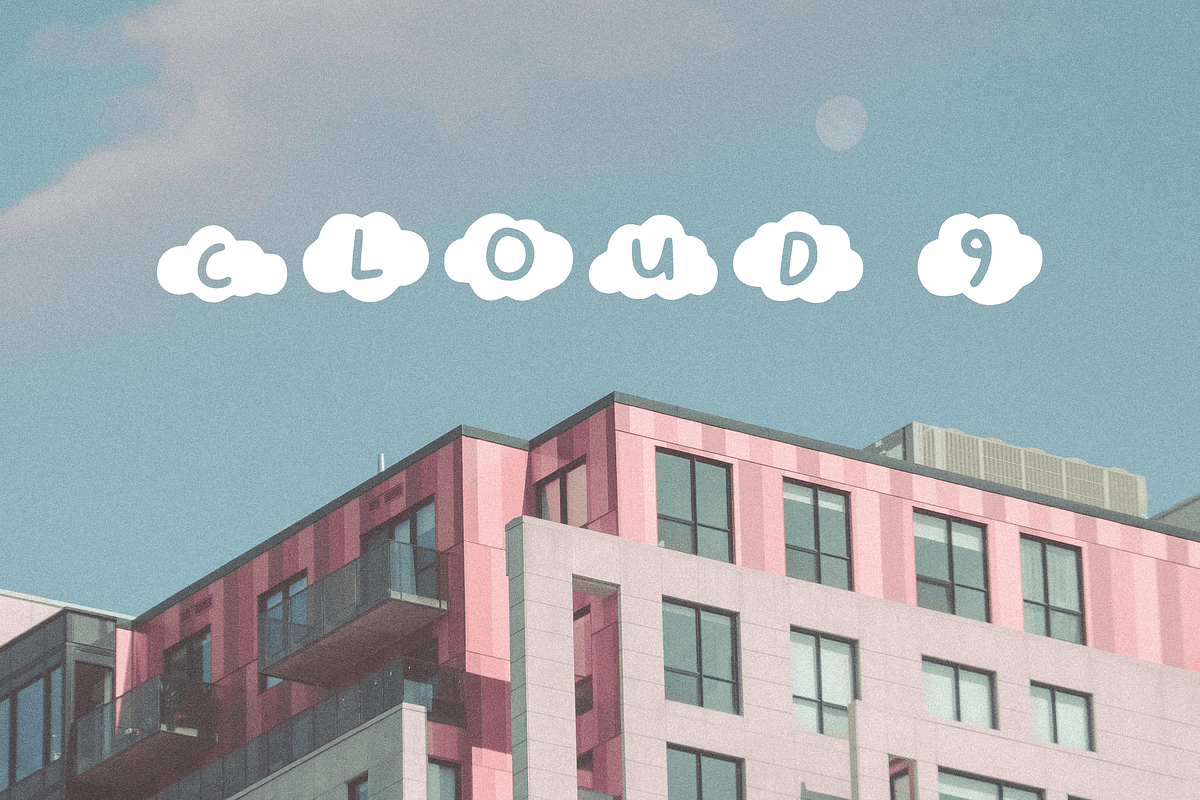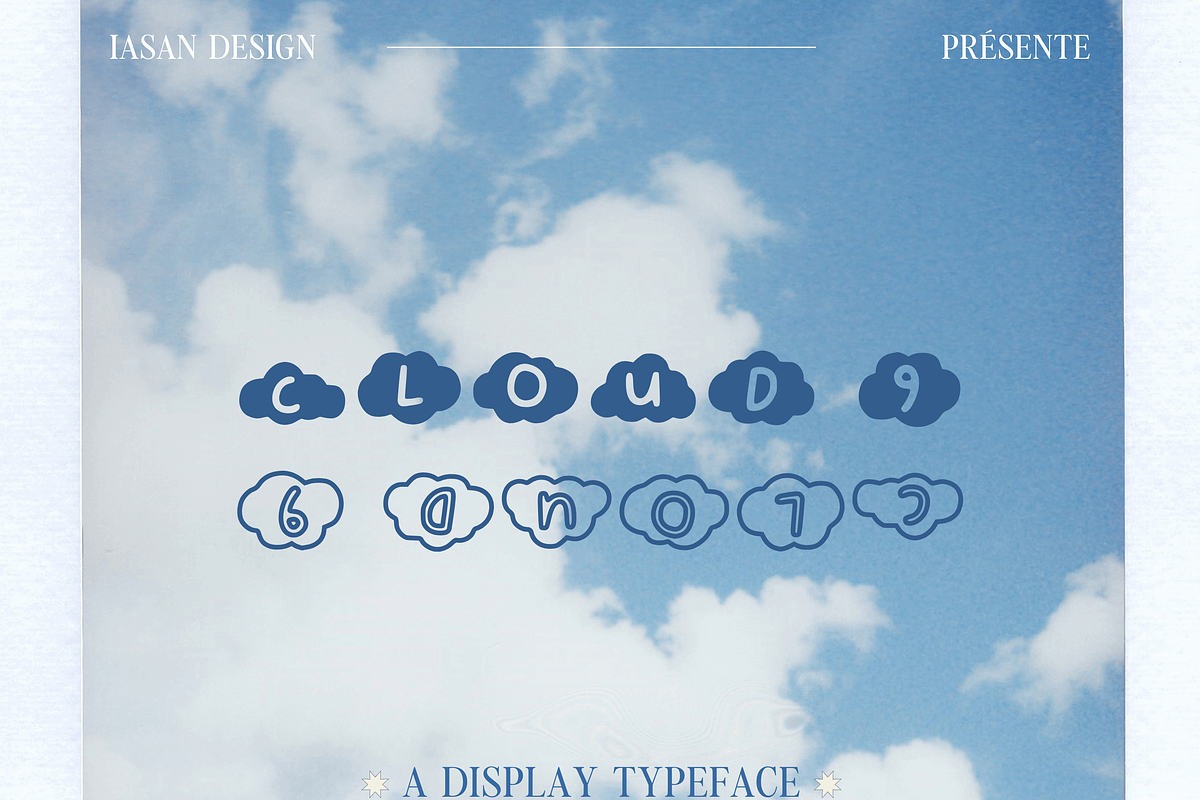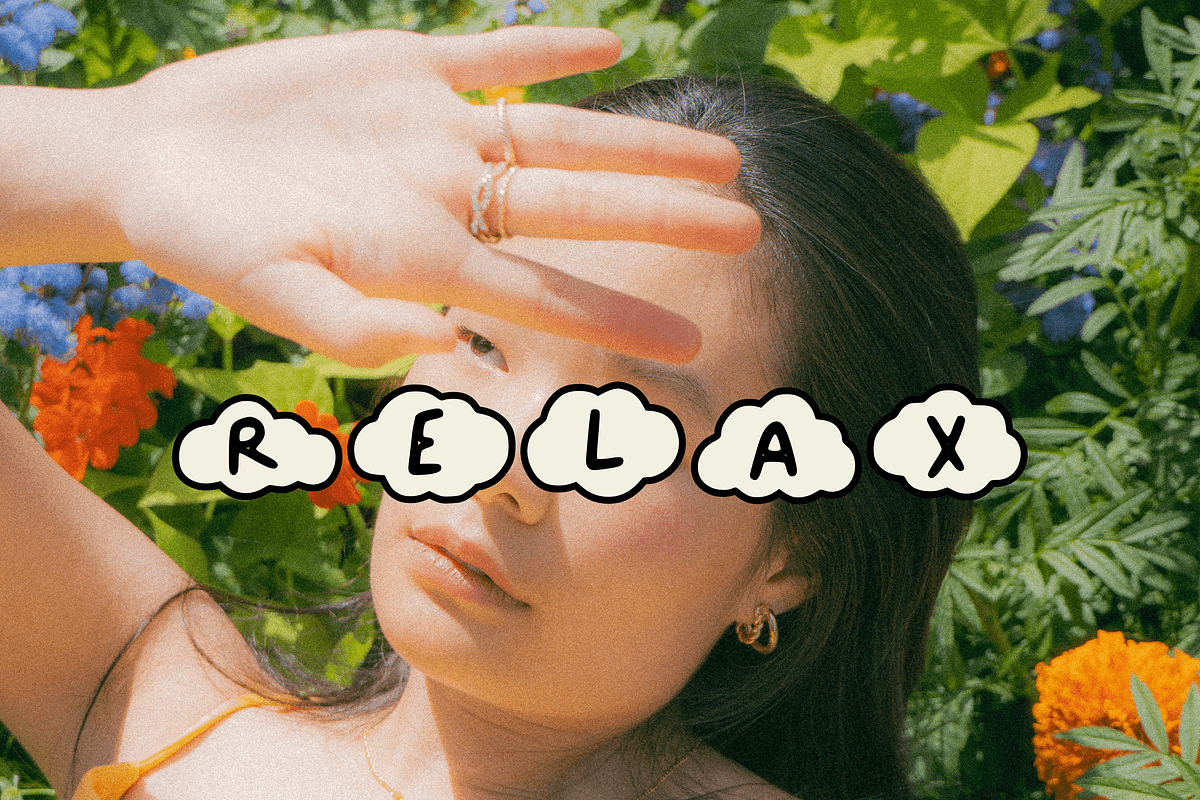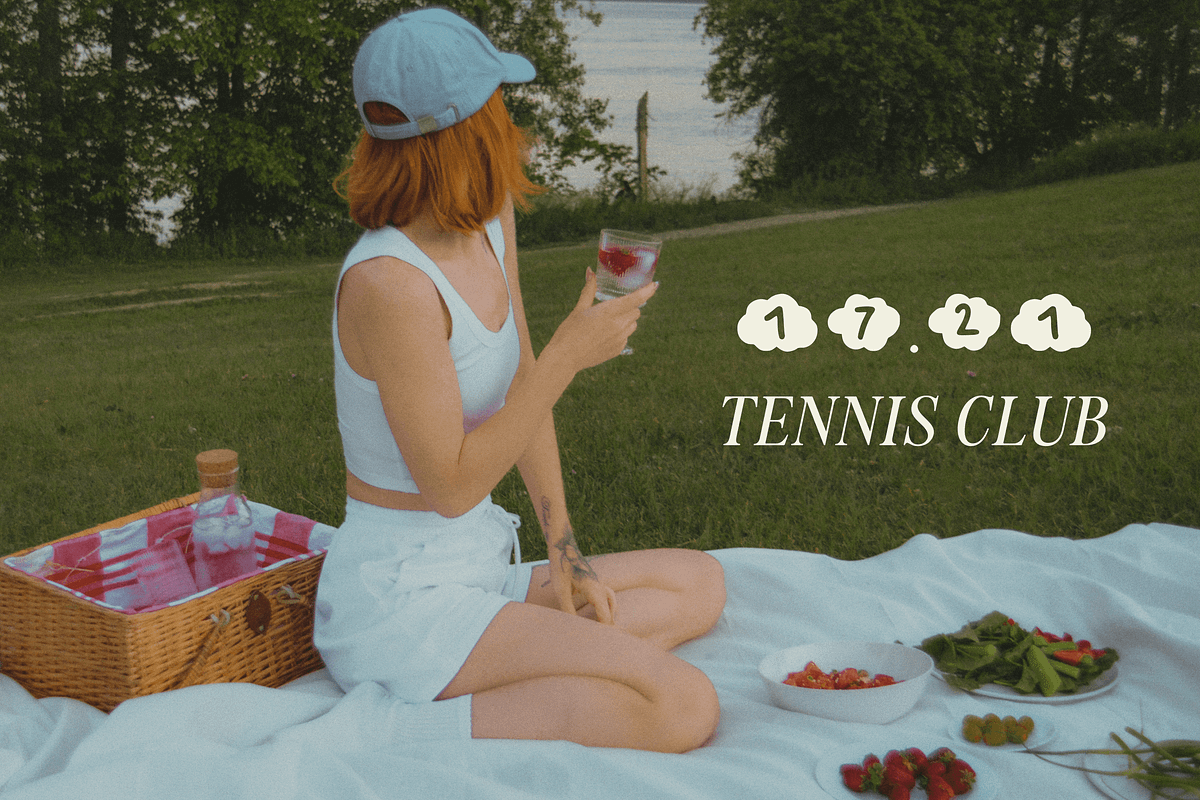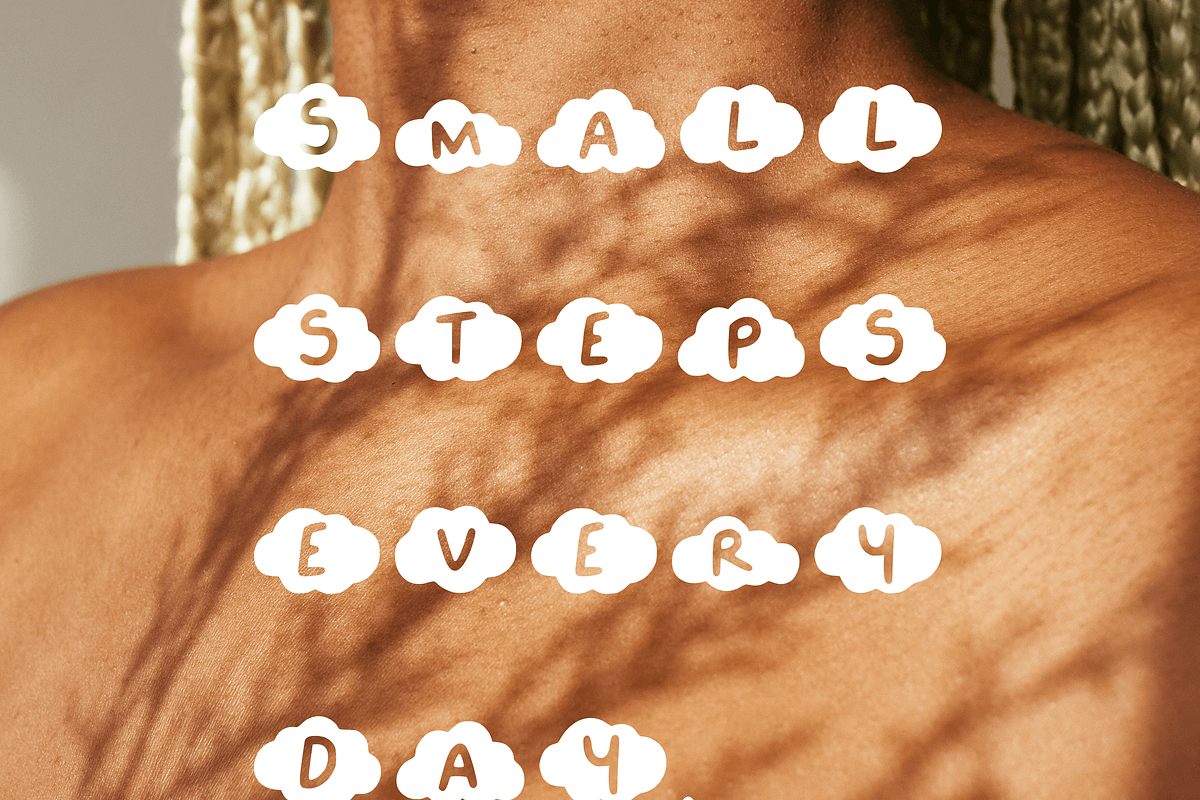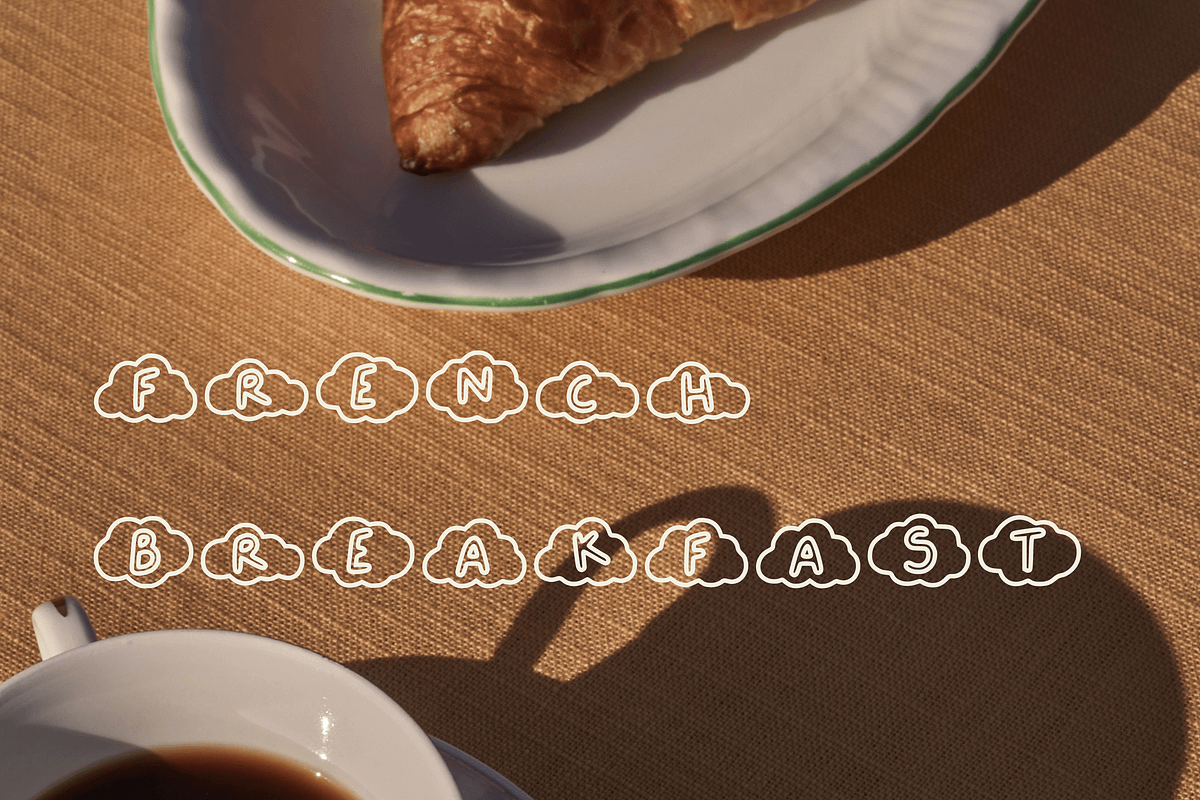
Cloud 9 - A display font
Discover the sweetness and lightness of the Cloud 9 font. A naive and delicate typeface that will seamlessly integrate into all your designs. It will add a touch of dreaminess to your creations.
This typeface includes:
☁︎ 26 alphabet letters
☁︎ Numerals
☁︎ Punctuation
☁︎ Accented characters